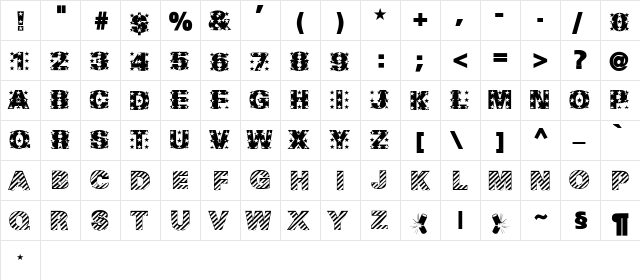
MadeInTheUSA Medium
Design Context for MadeInTheUSA Typeface
MadeInTheUSA is a composed and adaptable typeface that performs quietly and consistently across a wide range of design contexts.